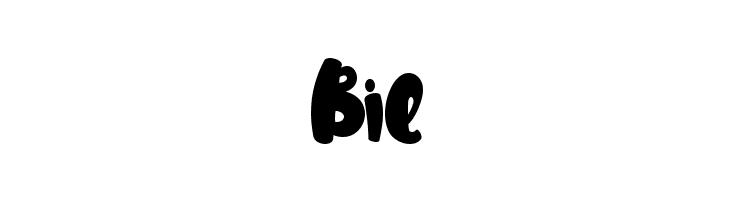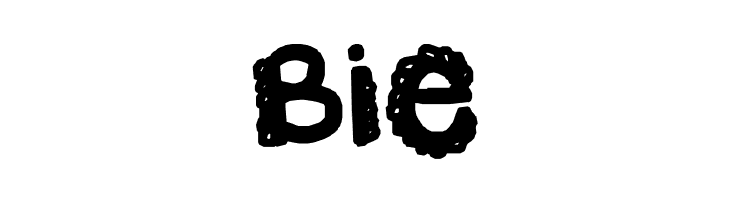
A bold, rugged font with a prehistoric, hand-carved appearance.
A playful, bold font with chunky, whimsical characters perfect for creative projects.
A bold, playful font with a hand-drawn, organic feel.
A playful, bold font with rounded, thick strokes and a friendly appearance.
A bold, playful layered font with a three-dimensional effect.
A playful, hand-drawn font with bold, rounded characters.
A bold, textured font with a rugged, prehistoric aesthetic.
A playful, informal handwritten font with rounded, consistent strokes.